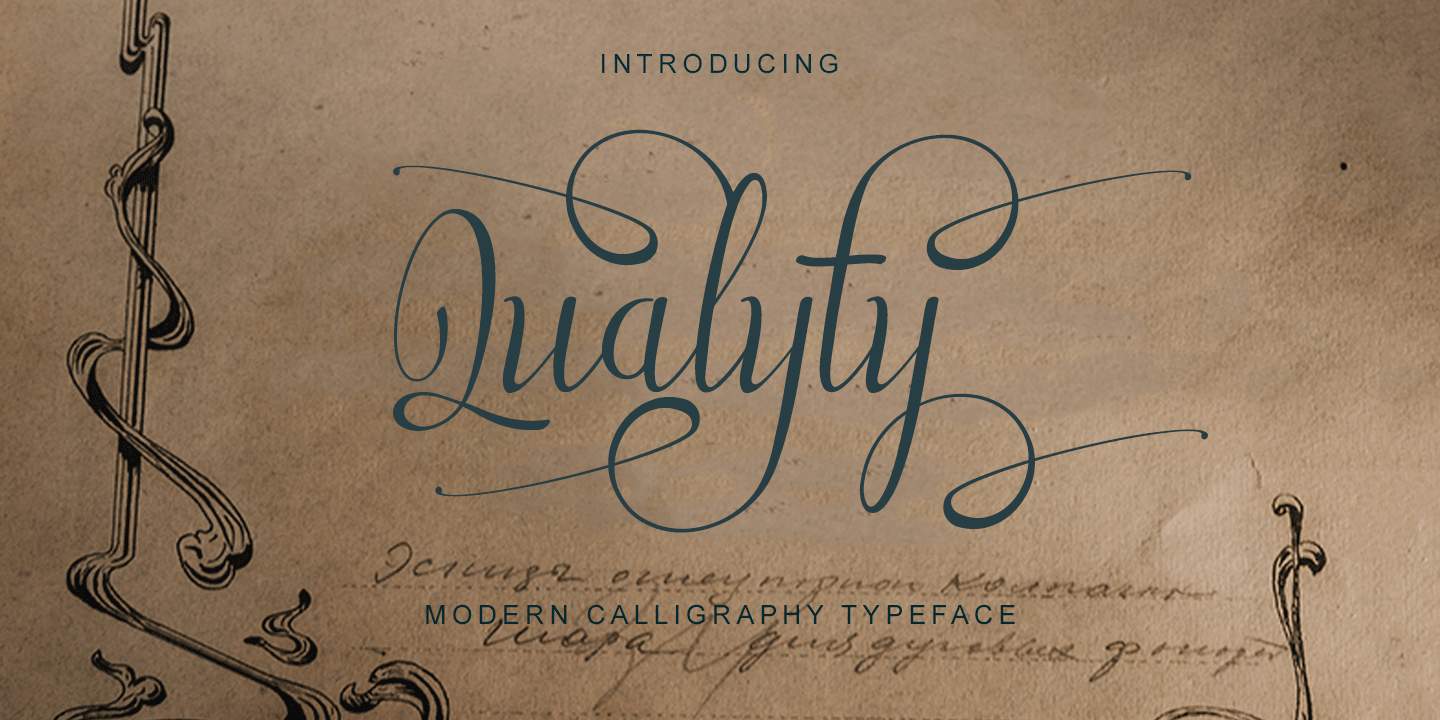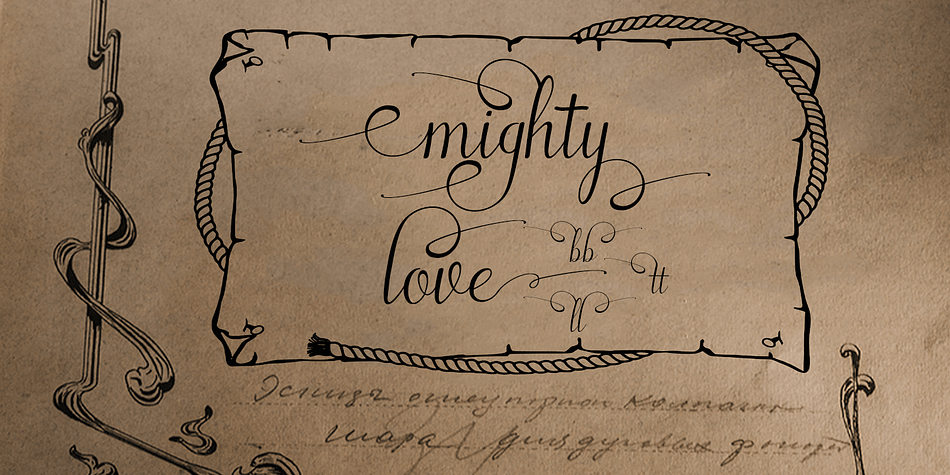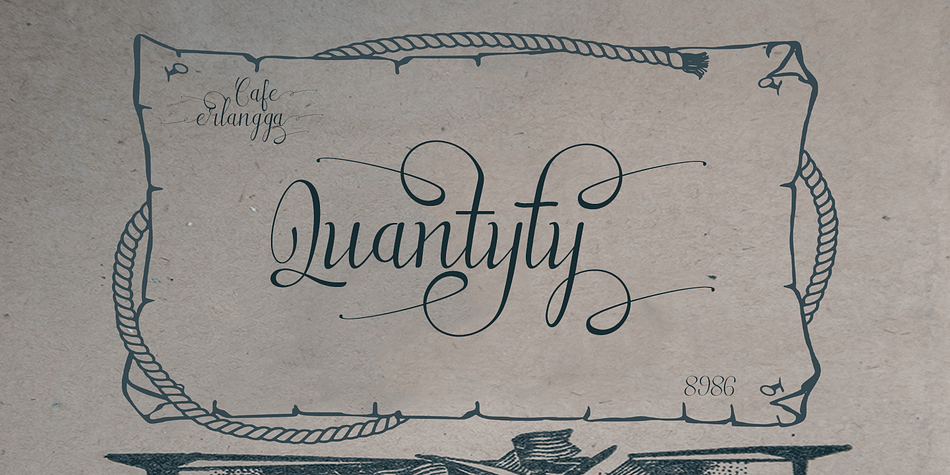
Qualyty
Designed by Rahmat Hidayat, Qualyty is a modern calligraphy font published by RtCreative.
Qualyty, a work that is purely handwritten, has natural characteristics. It’s perfect for invitations, signatures, blogs, social media, business cards, product brands.
Qualyty is a simple font that has Stylistic standards, Stylistic Alternatives. and includes uppercase and lowercase letters, numbers and punctuation.
Foundry RtCreative
Style Modern Calligraphy
Designer Rahmat Hidayat